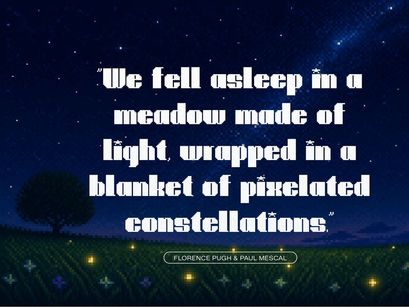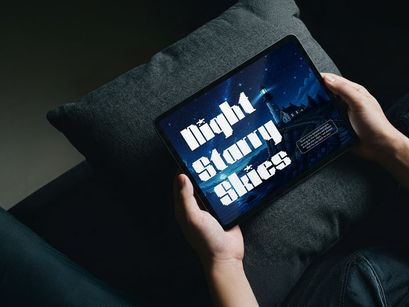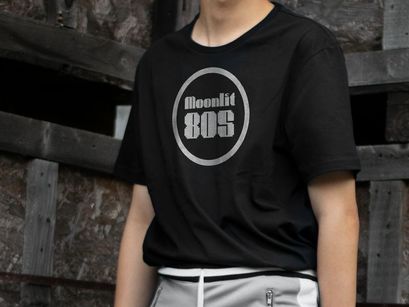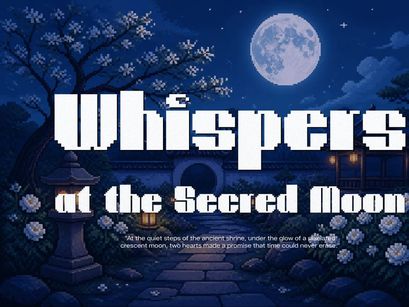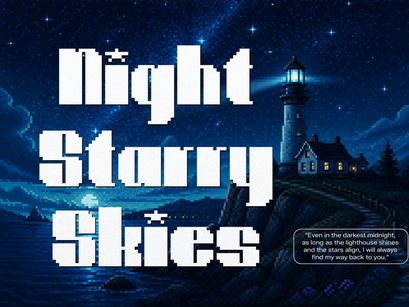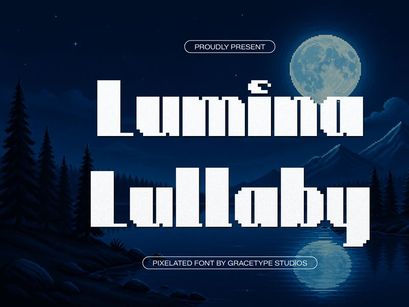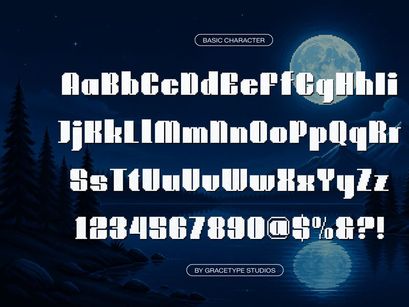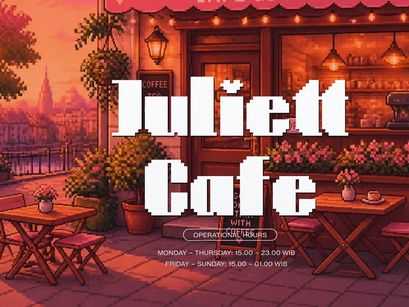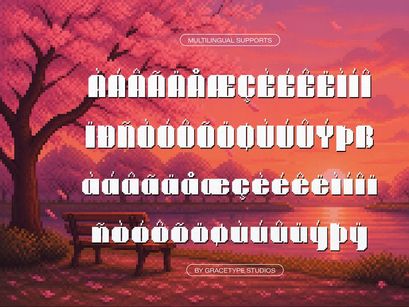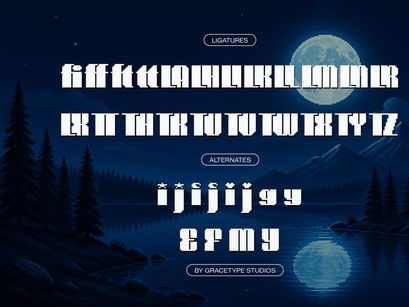
Lumina Lullaby | Pixelated Font, from Gracetypestudio, suitable for any projects such as: logos, branding projects, homeware designs, product packaging, mugs, quotes, posters, shopping bags, t-shirts, book covers, name card, invitation cards, greeting cards, label, photography, watermark, special events, and all your other lovely projects that need a Pixelated taste.